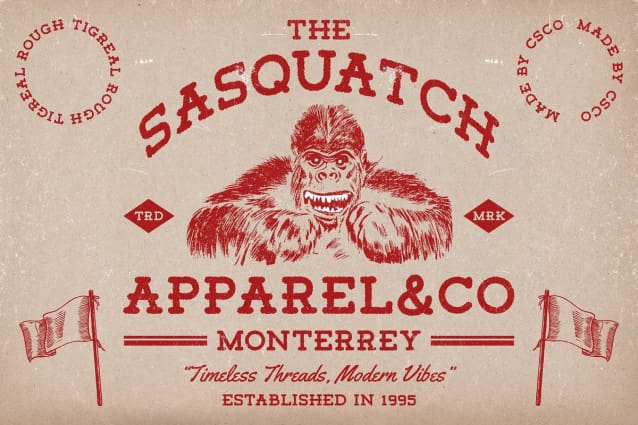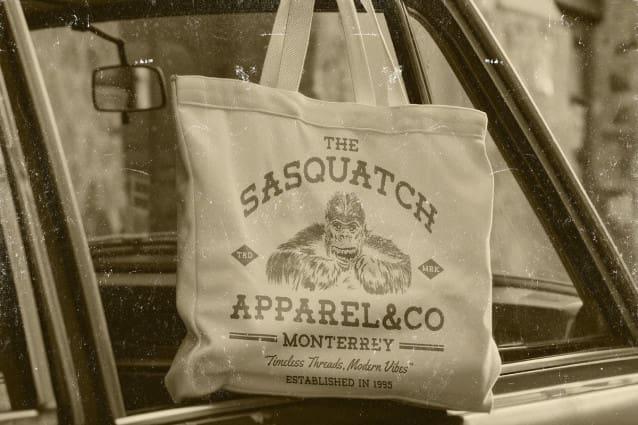
Tigreal Rough Font
Tigreal Rough Font is a slab serif font that captures the rugged spirit of the American frontier era. Its bold, square serifs deliver a solid, striking appearance that exudes strength and durability. Inspired by the Wild West, this font integrates classic design elements with a vintage, nostalgic touch.
Authentic Wild West Ornaments Featuring cowboy-inspired ornaments, Tigreal Rough evokes a sense of nostalgia and classic Americana. These details enhance the font’s retro appeal, adding an authentic Wild West flair that brings a touch of historical charm to any design.
Textured Rough Effect for a Handmade Feel The rough effect adds a textured, handmade quality to Tigreal Rough, emphasizing its vintage character. This textured look enhances the font’s authenticity, giving it a more organic, retro feel that complements its classic slab serif design.
Perfect for Nostalgic and Western Designs Tigreal Rough is ideal for projects that aim to highlight nostalgia and American Western style. Whether used in posters, branding, or promotional materials, this dramatic and characterful font brings a distinctive Wild West aesthetic to any design.